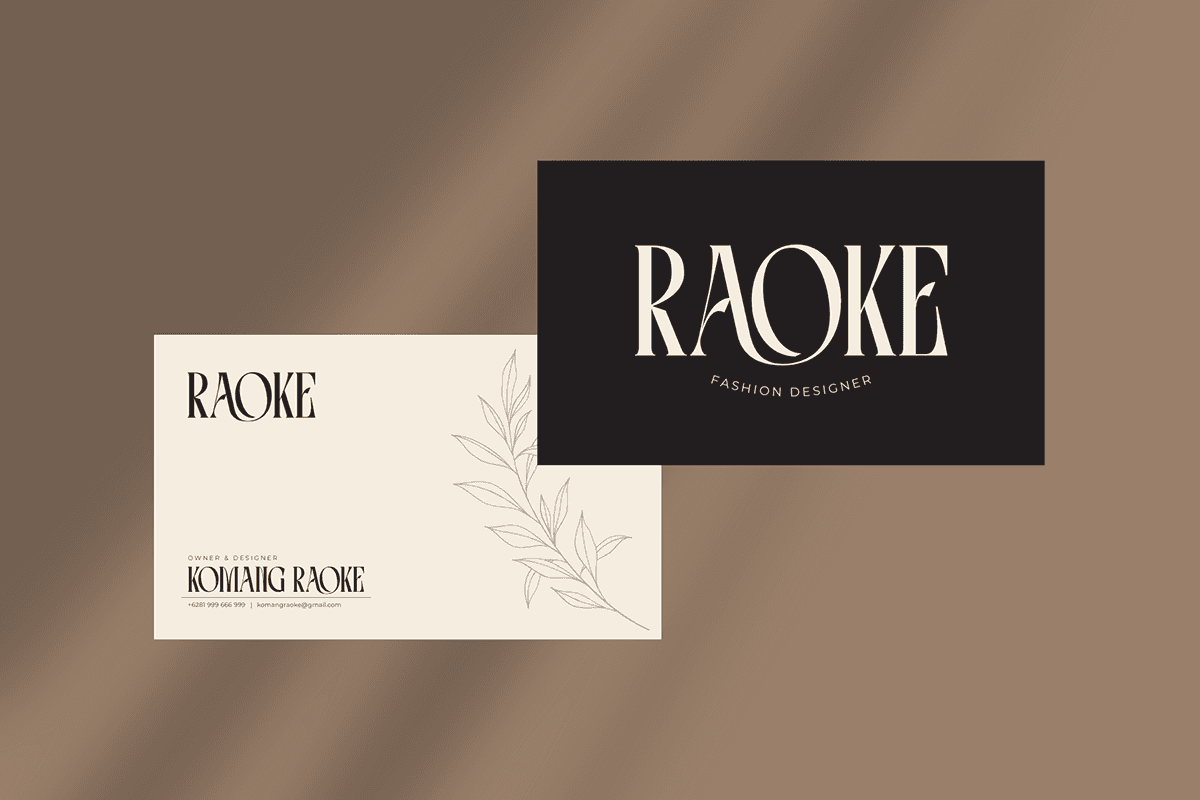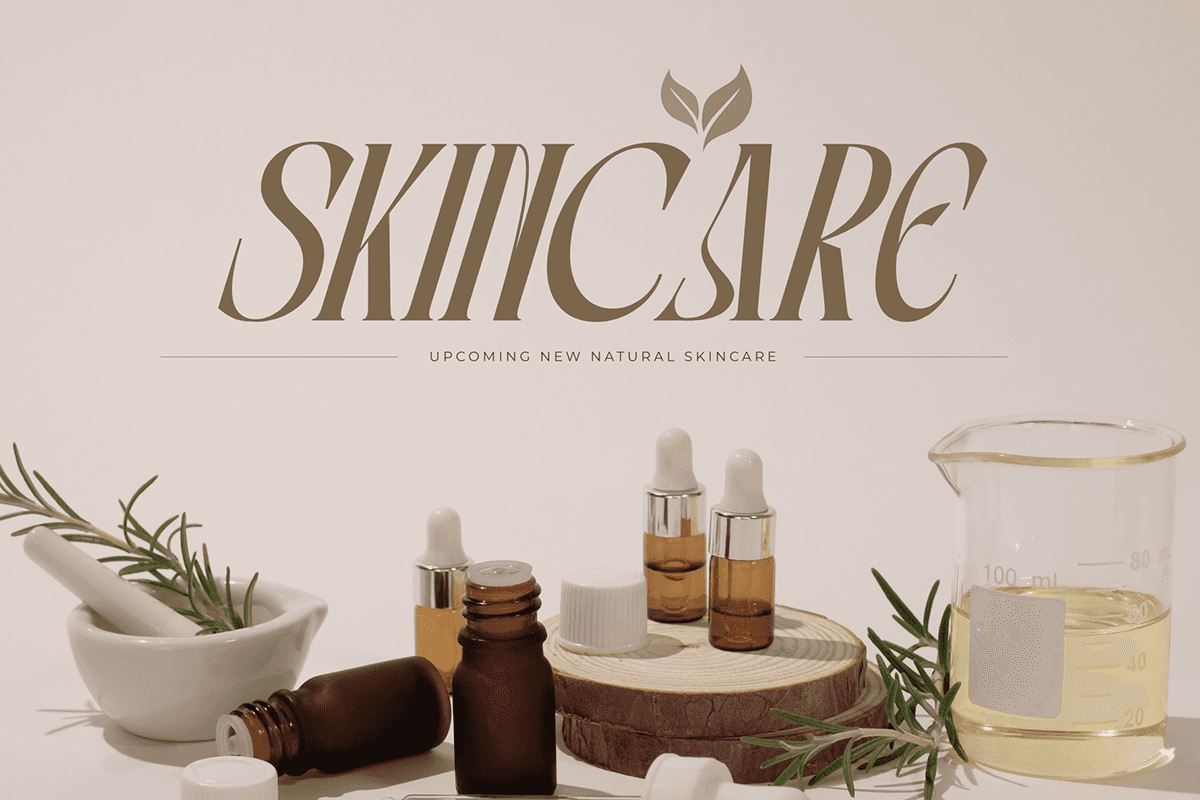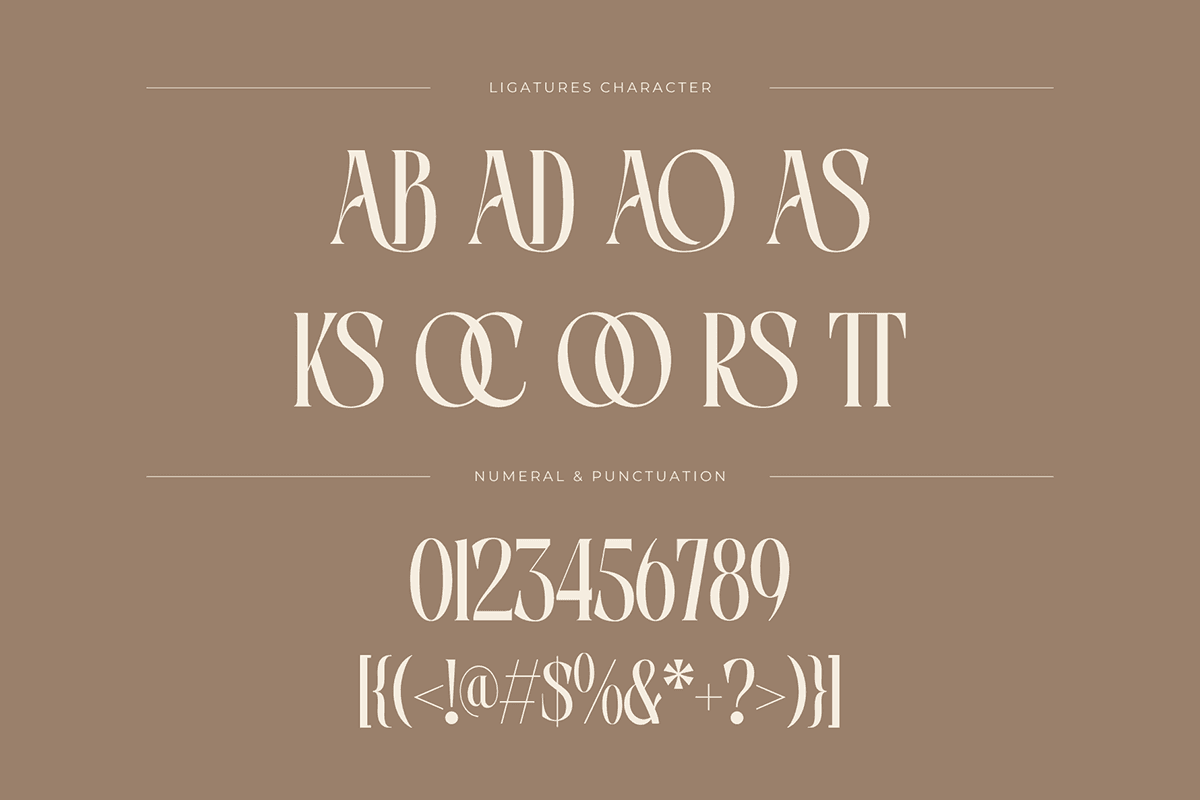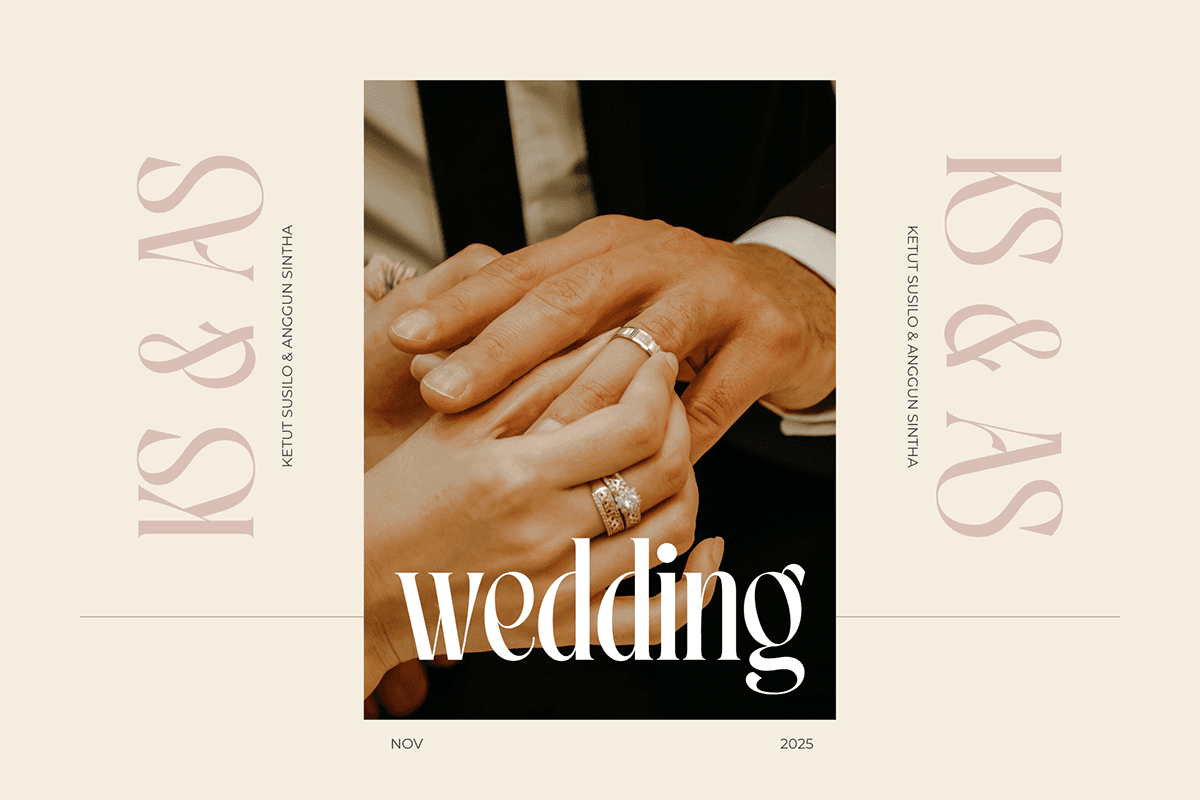
Zurse Fashion – Display Font is a stylish and modern fashion font designed to elevate your brand identity. With its sleek lines and elegant curves, Zurse adds a touch of luxury and sophistication to any project. Perfect for fashion labels, logos, websites, and editorial designs, it captures attention with minimal effort. Zurse blends contemporary style with timeless appeal, making it the go-to choice for brands that want to stand out with confidence and flair.